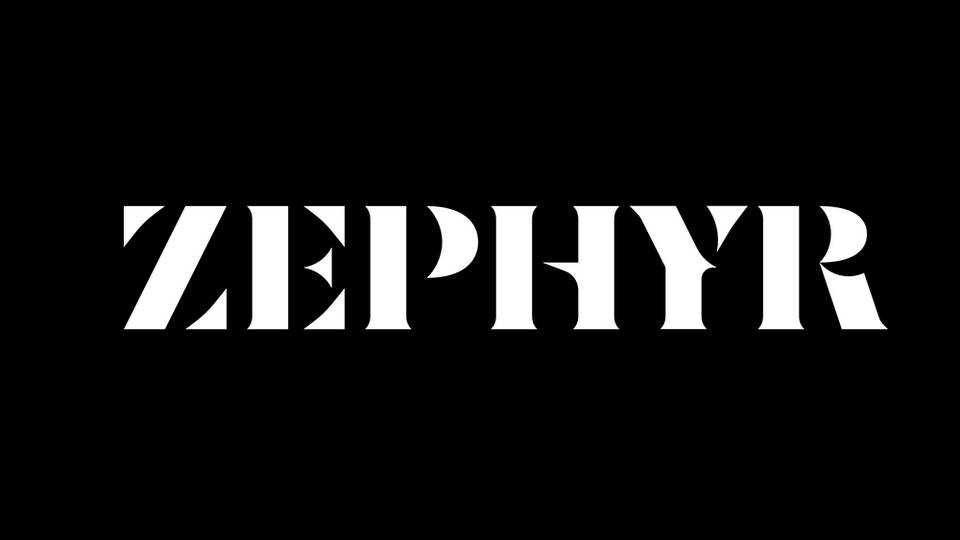
Download Zephyr typeface, an amazing stencil serif family of 16 fonts. Zephyr looks best for logos and branding headlines, posters and signage and other creative typographic projects.
Designer: Alexander Sheliketo